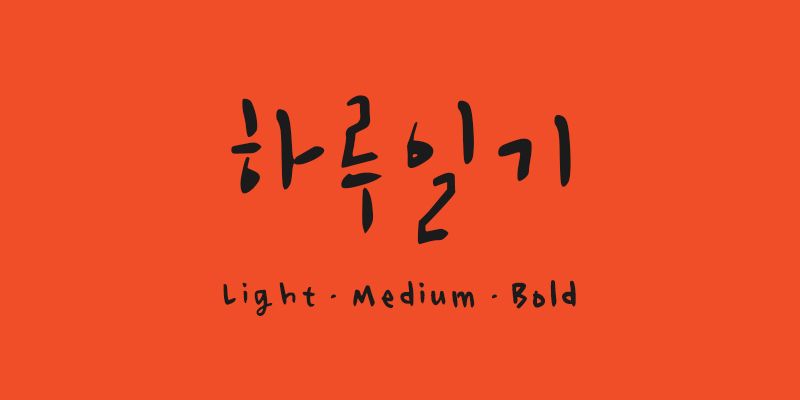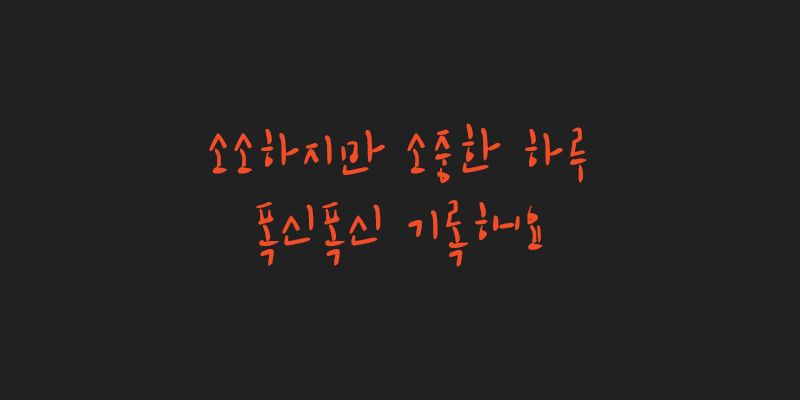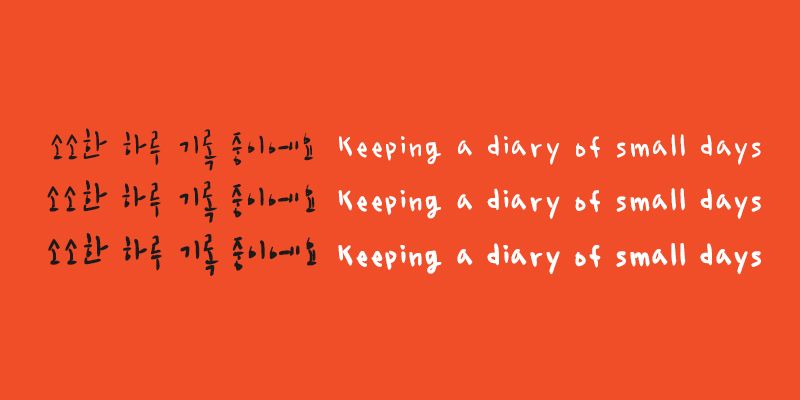
Daynote is a warm handwritten font inspired by the quiet moments of everyday life. Its soft, natural strokes capture the feeling of writing in a personal diary, creating an authentic and approachable voice. Perfect for journals, books, social media, branding, packaging, greeting cards, and editorial design, Daynote brings comfort, sincerity, and a gentle human touch to every project while remaining highly legible across both print and digital media.